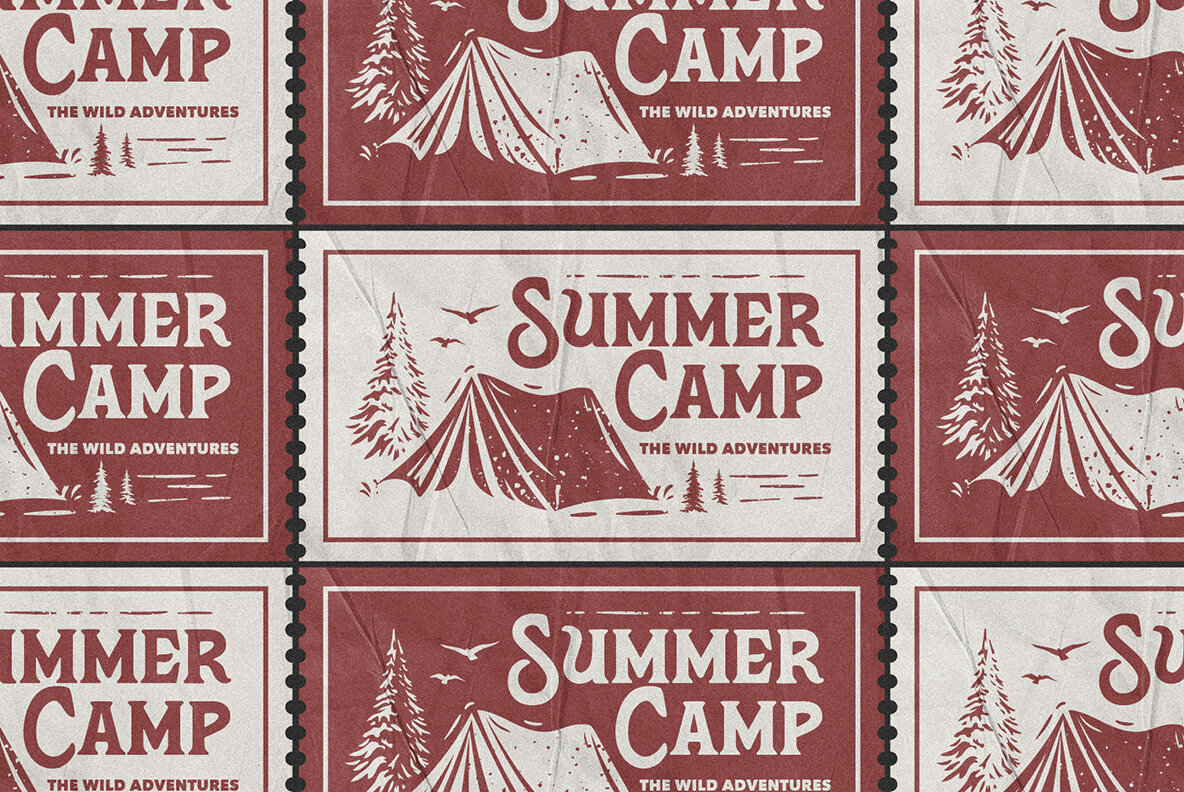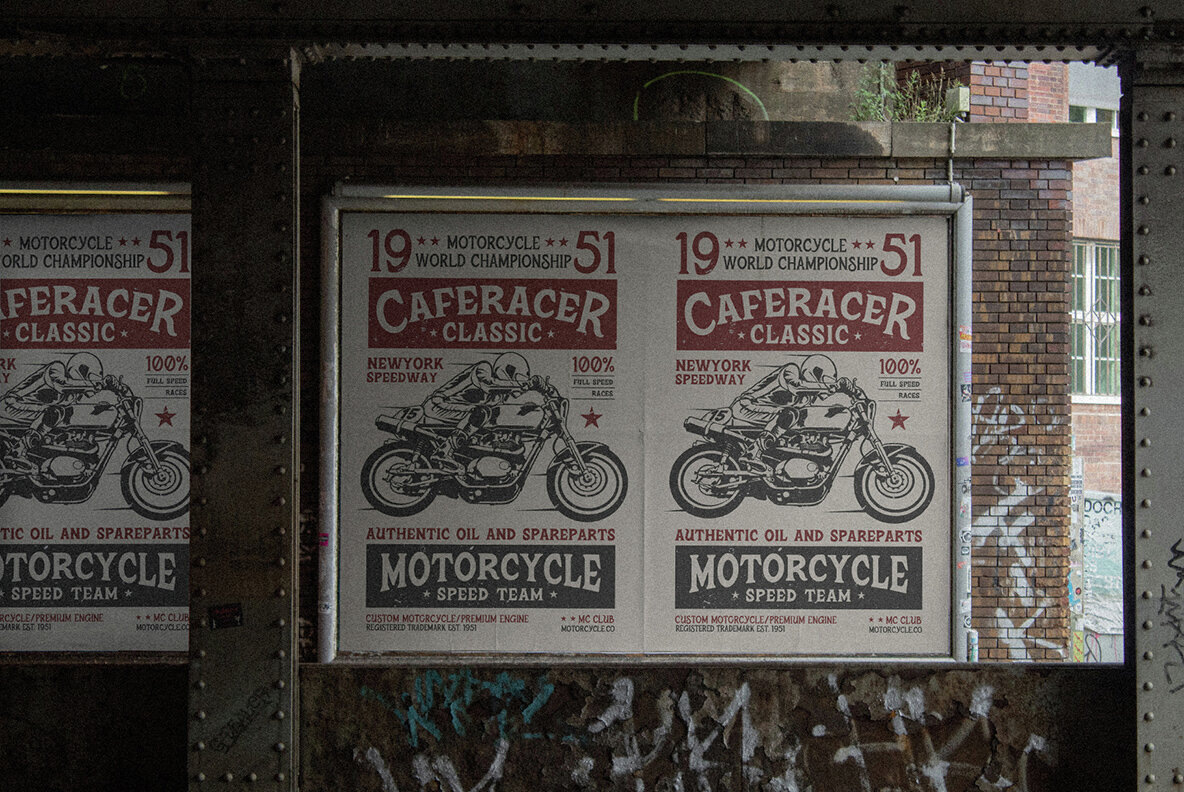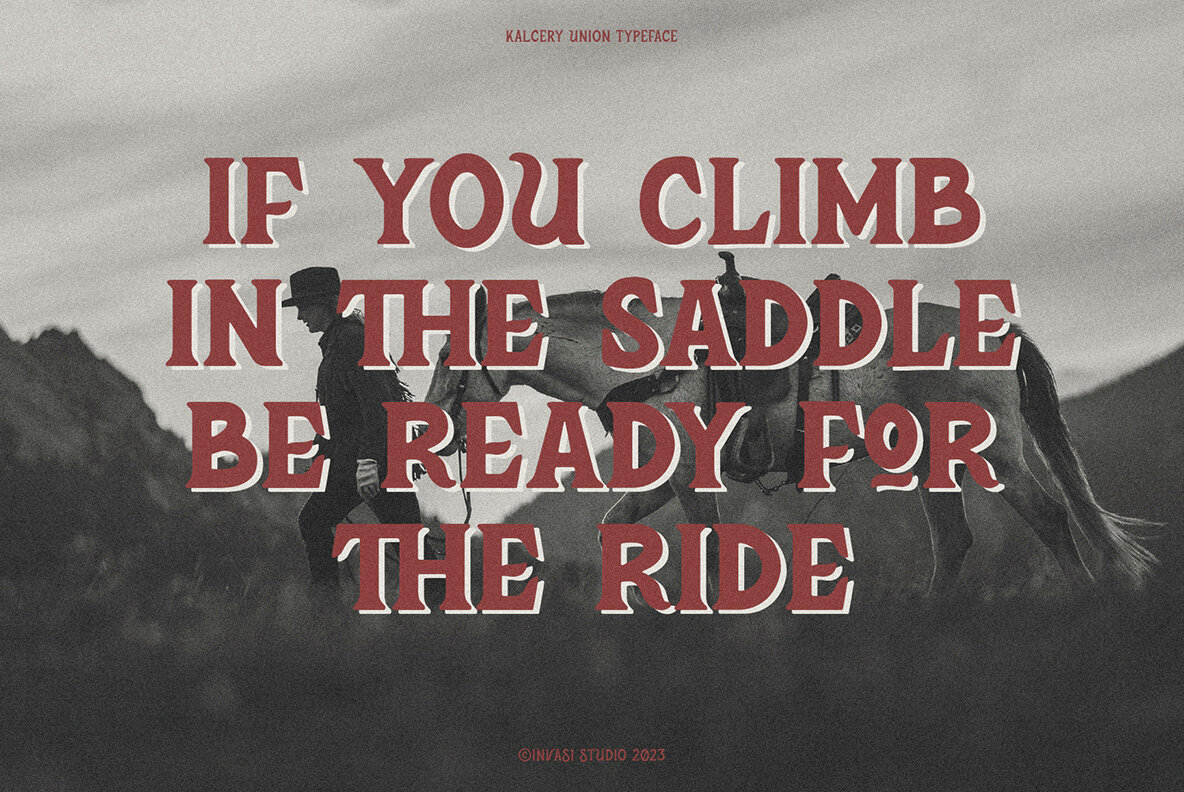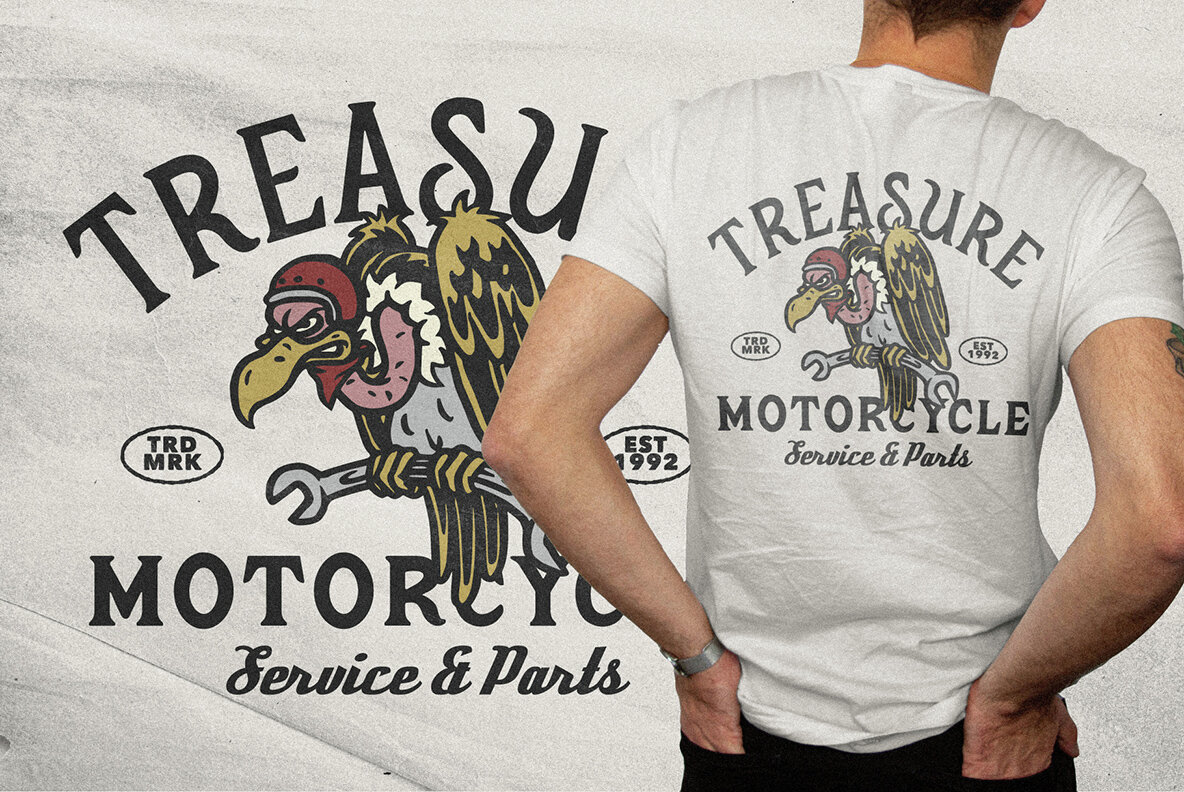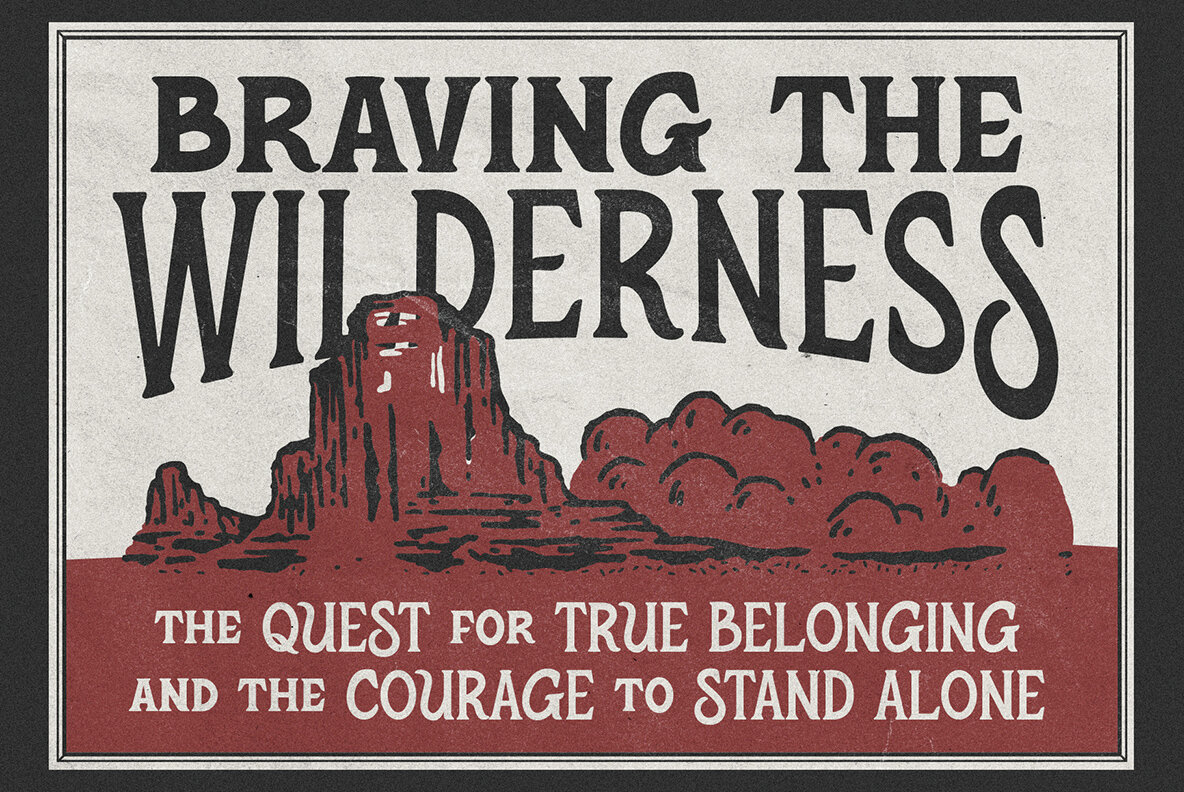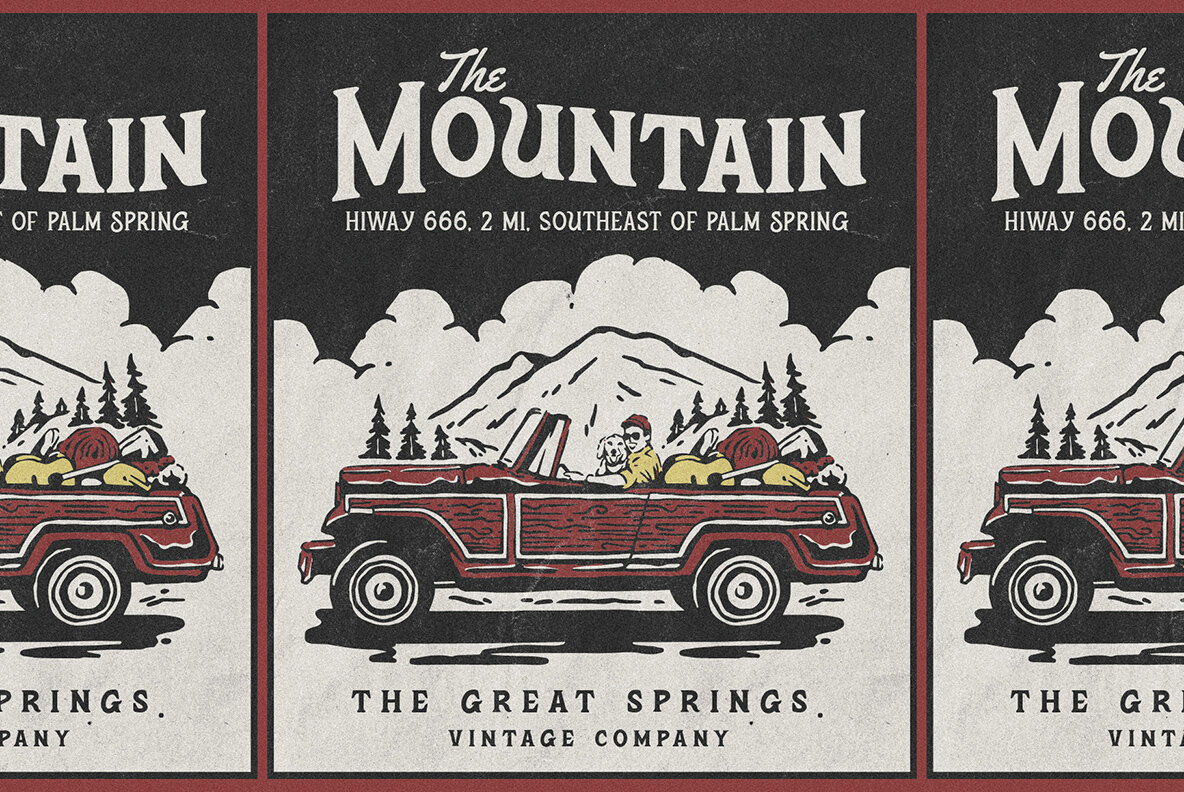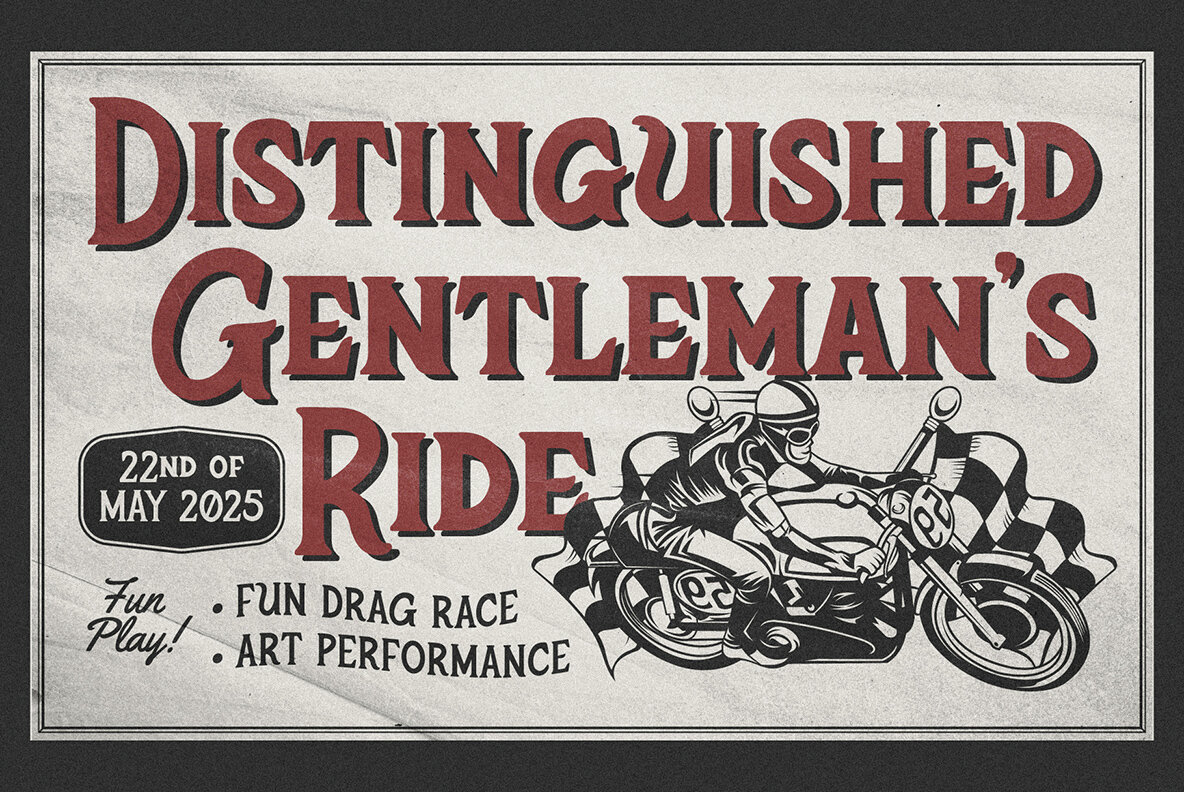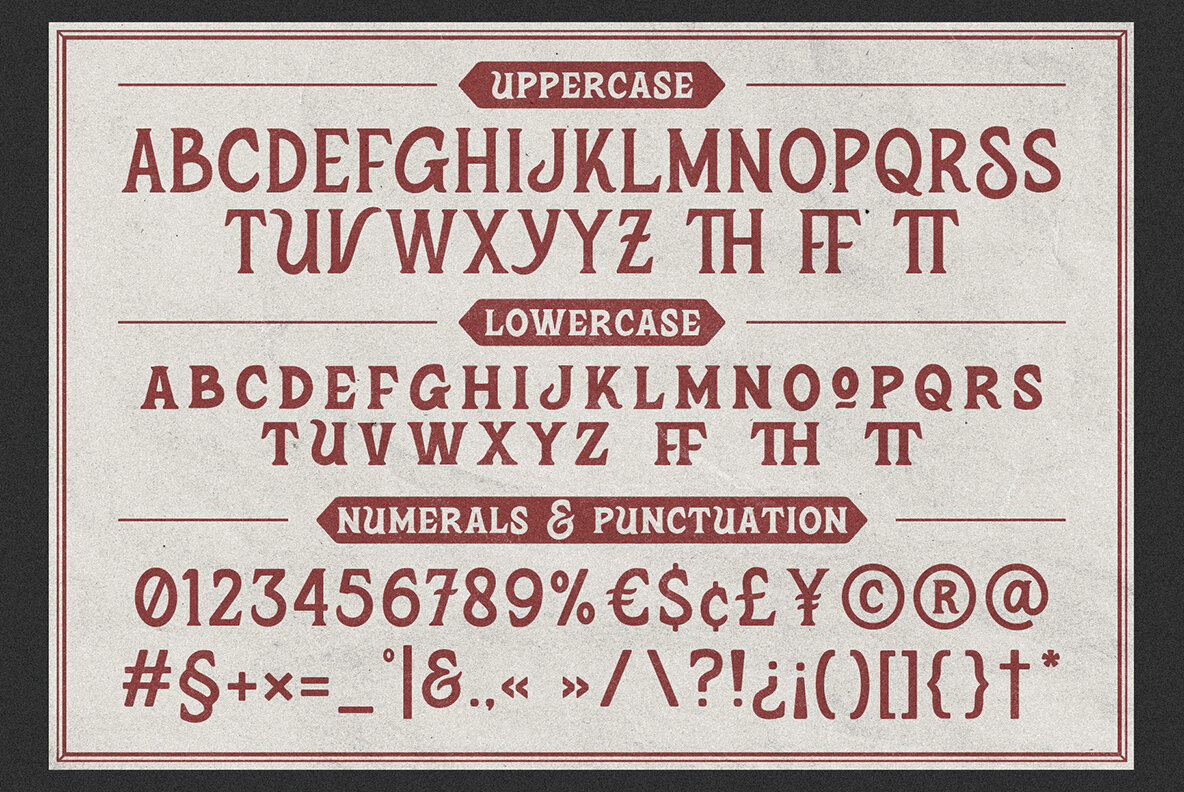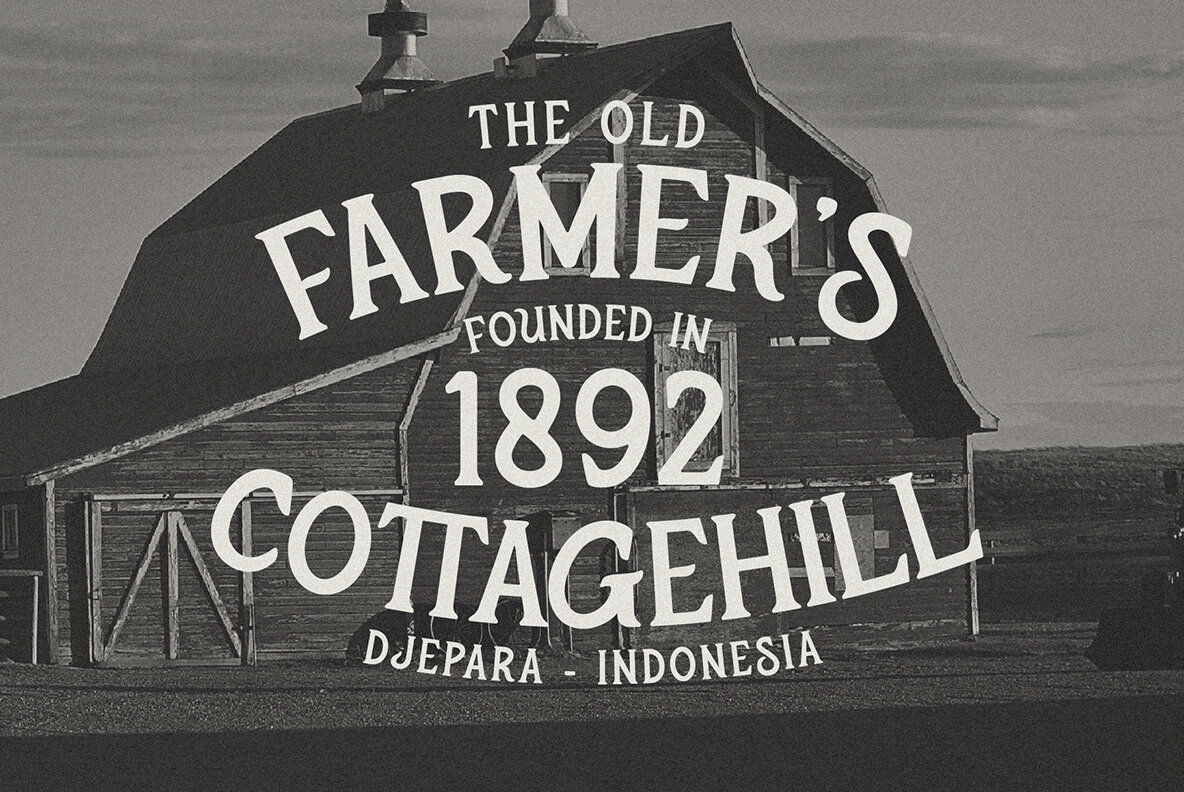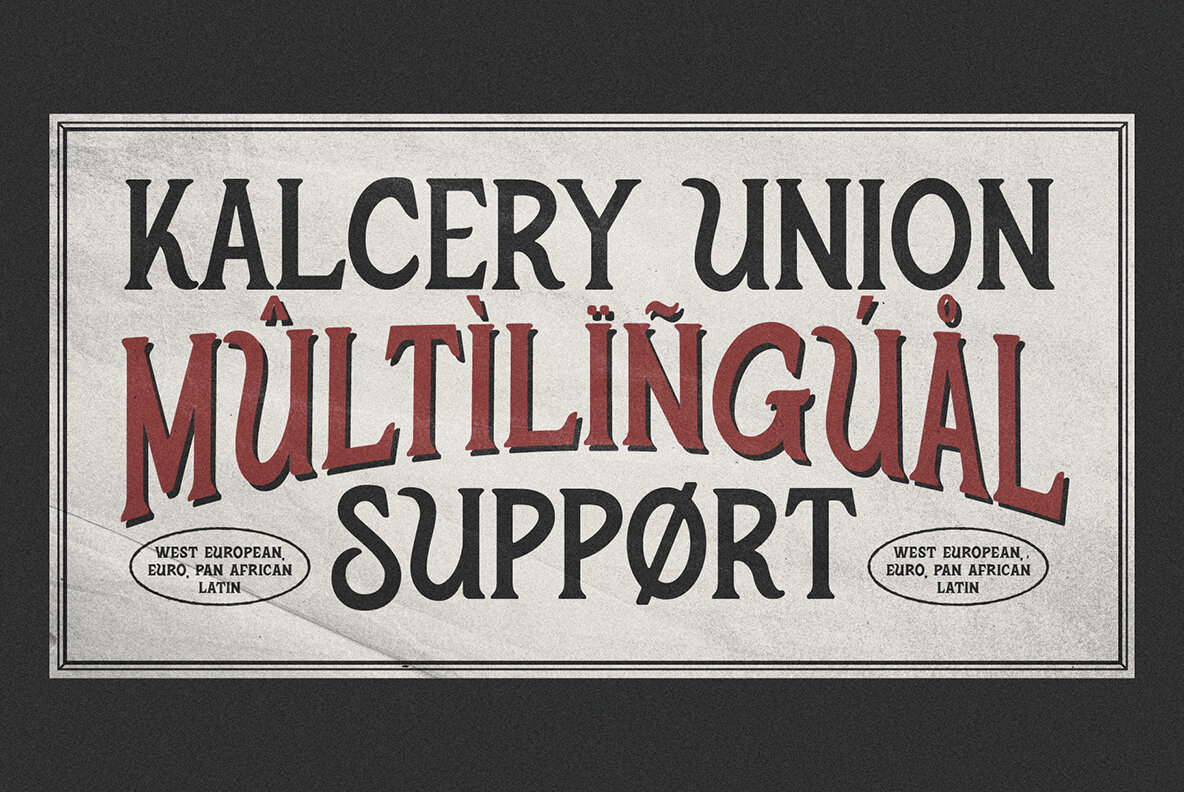
Kalcery Union Font
Kalcery Union is a striking serif all-caps display font that exudes a vintage style reminiscent of motorcycle club logos and posters. Its bold and impactful uppercase letters truly make a statement, while the meticulously crafted glyphs feature special swash characters, adding an extra touch of uniqueness and charm to your designs. Notably, this font showcases special characters with varying heights in both uppercase and lowercase, further enhancing its versatility. Whether you're designing headings, t-shirts, flyers, greeting cards, product packaging, book covers, printed quotes, logotypes, or album covers, Kalcery Union is the perfect choice. It's vintage-inspired aesthetic captures the essence of a bygone era, giving your projects an authentic and captivating appeal.